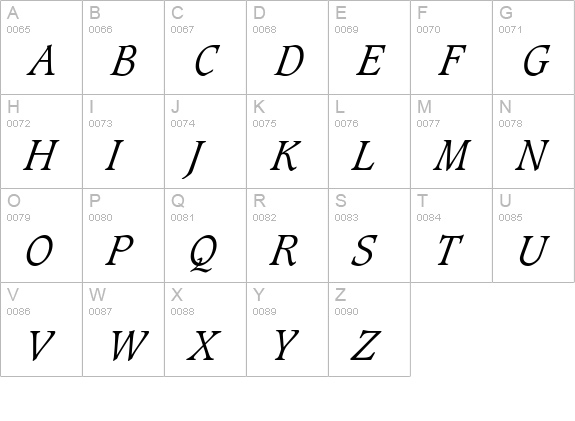
Grammateus Light SSi Light Italic Font Details
Grammateus Light SSi Light Italic is a refined, elegant, italic variant in the Grammateus typeface family \xE2\x80\x94 well suited to elegant body text, refined sub-headings, and luxury branding.
Grammateus Light SSi Light Italic font is a beautifully crafted typeface that exudes elegance and sophistication. Its slender and flowing italic design adds a touch of grace to any project, making it perfect for use in various creative endeavors, such as branding, advertising, and editorial design. This font offers a perfect balance between modernity and classic style, making it versatile and suitable for a wide range of applications. The delicate curves and slanted angles of Grammateus Light SSi Light Italic font give it a unique and distinctive look that is sure to captivate the audience. Best of all, this stunning font is available for free download at FontsMarket.com, allowing designers and creatives to access this premium typeface without any cost. Don't miss out on the opportunity to enhance your projects with the timeless beauty of Grammateus Light SSi Light Italic font – download it today and elevate your designs to new heights.